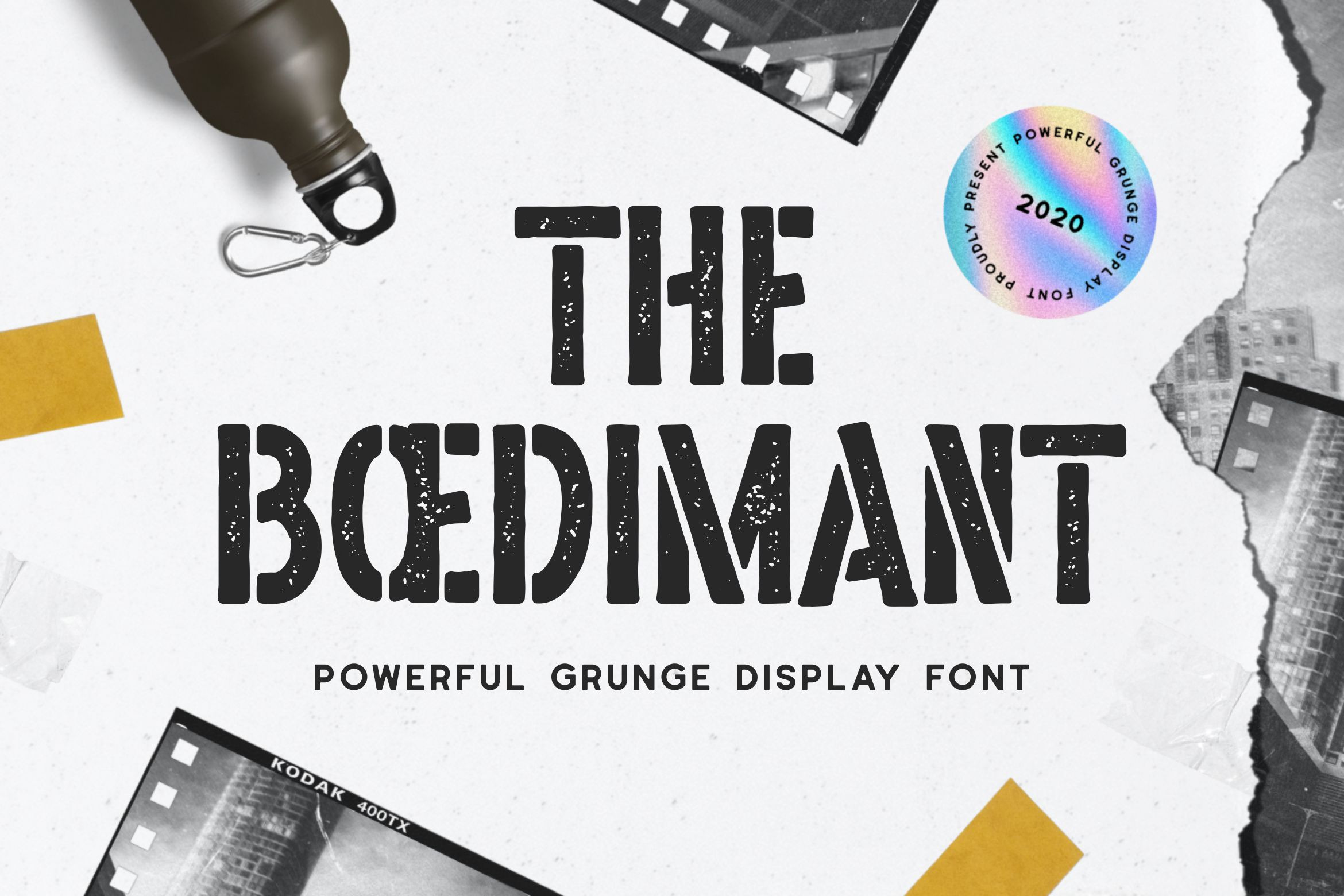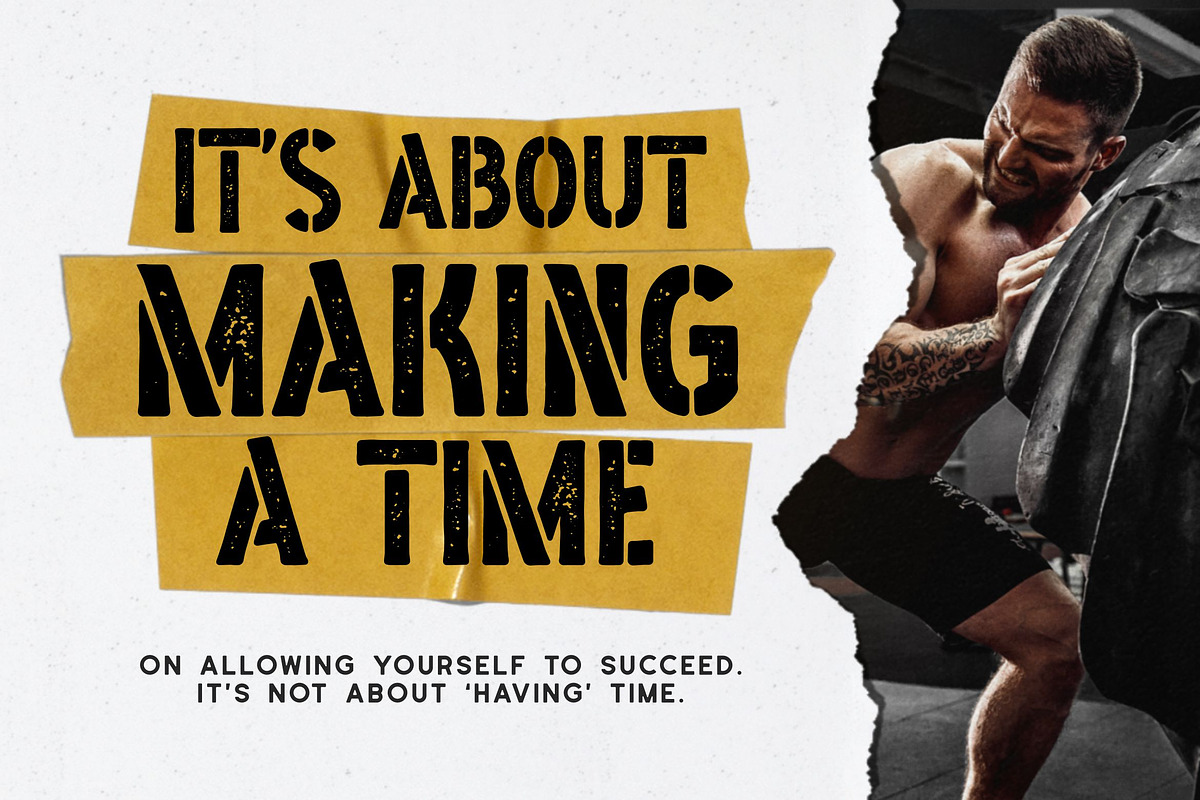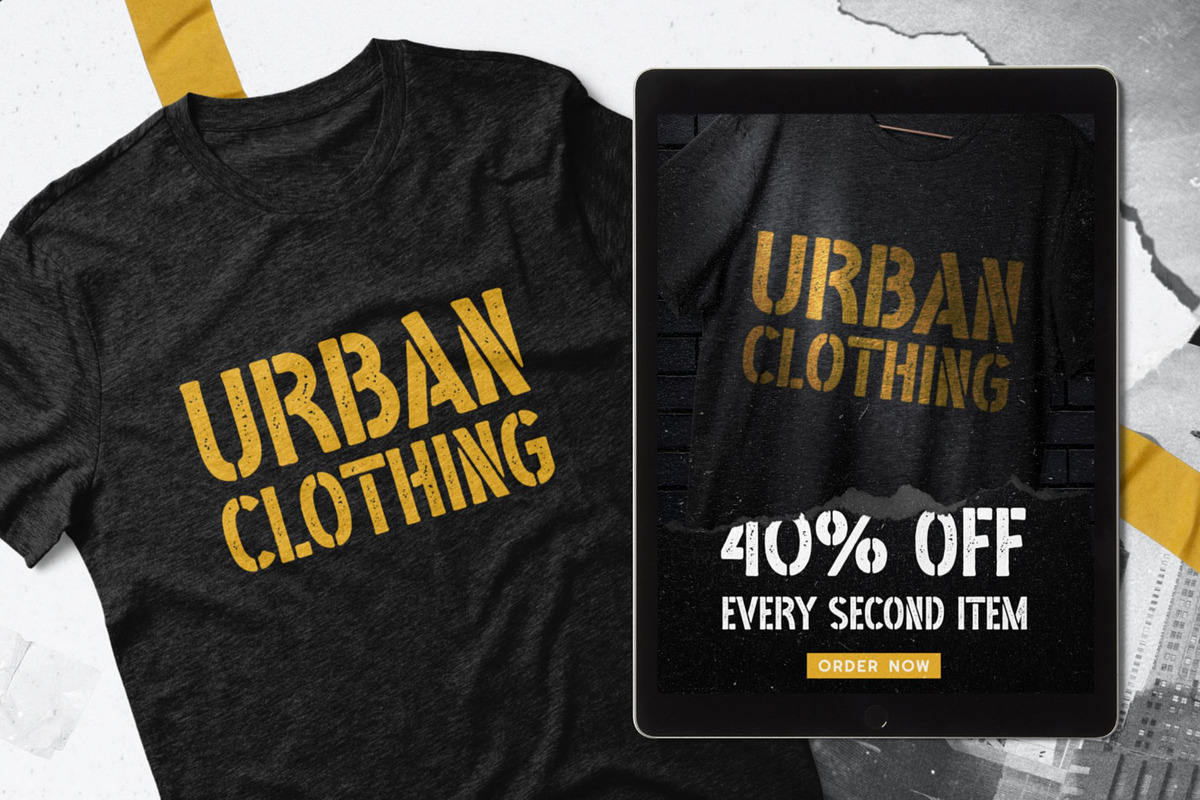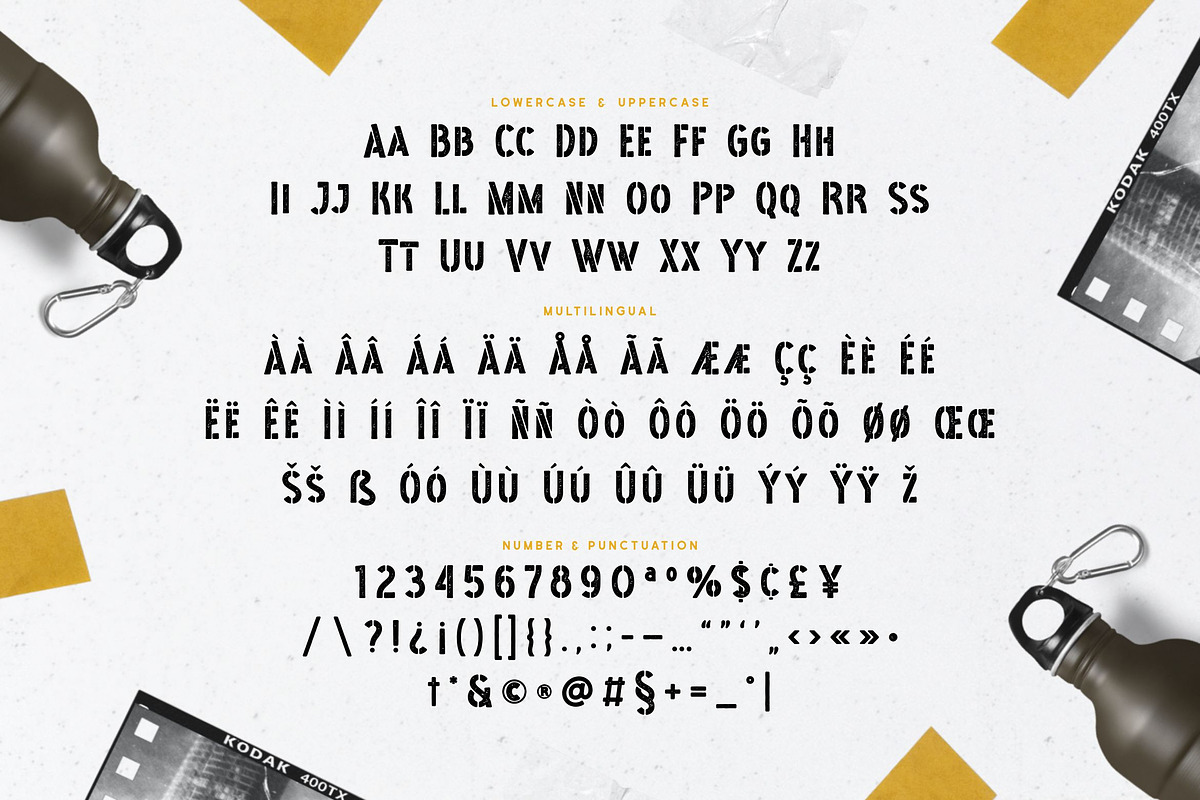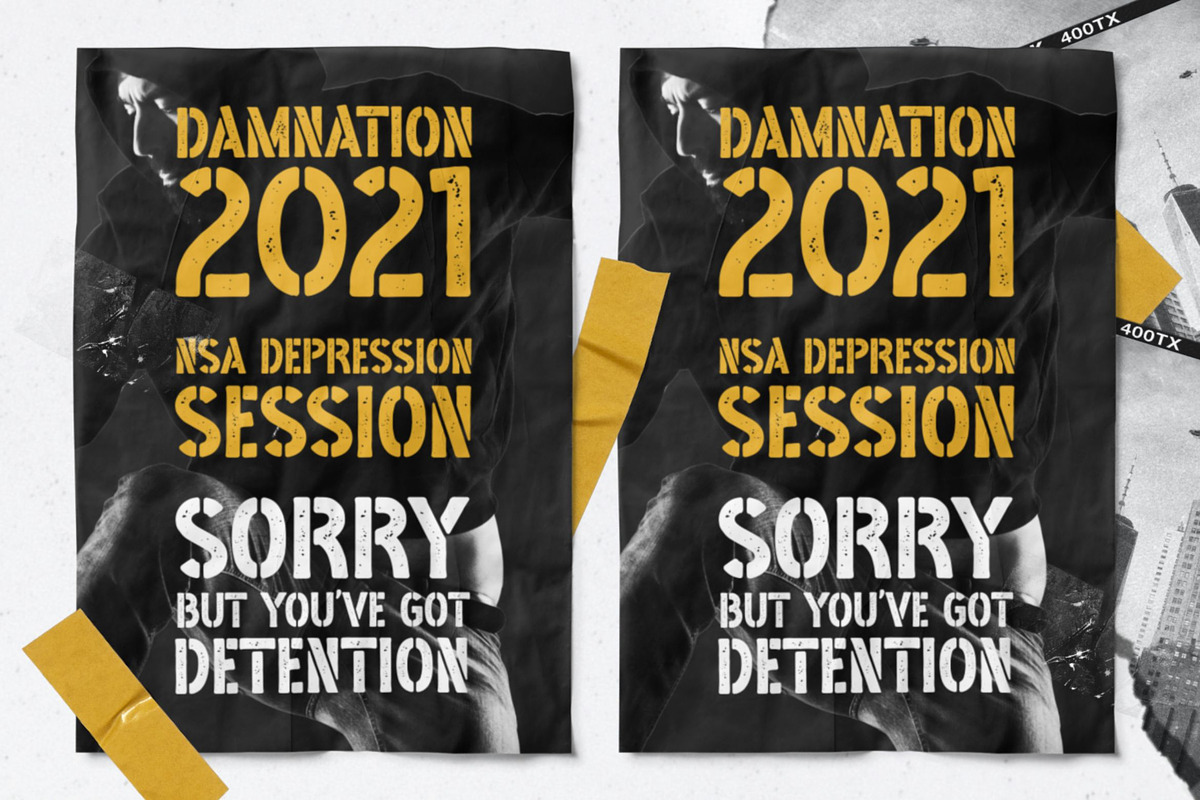
Boedimant - Grunge Display Font
Pleased to introduce you to Boedimant new grunge display font! The letter forms have slight quirks to them, giving this bold sans-serif display font a perfect imperfection. You can use it for making special event logos, such as skateboard or off-road bike races. This unique font is perfect for posters, T-shirt prints and other promo designs.